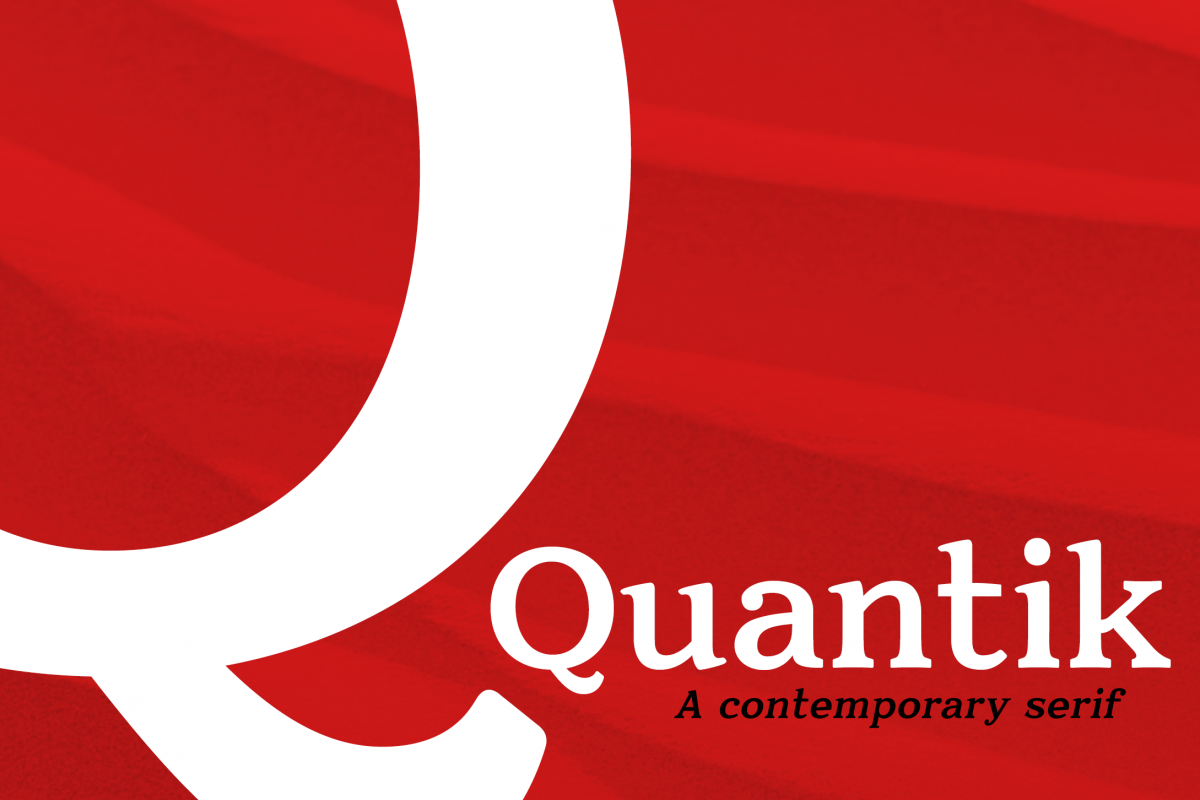
Quantik Elegant Contemporary Serif
Introducing Quantik, a contemporary serif that bridges the gap between traditional and cutting-edge design.
Quantik blends the classic beauty of traditional serif typography with modern design aesthetics typically found in a sans-serif. The typeface's increased weight contrast and angled counters create a calligraphic feel (mostly found in serif and script typefaces), while it's large x-height and bowed serifs deliver a more modern feel for a truly refreshing look.